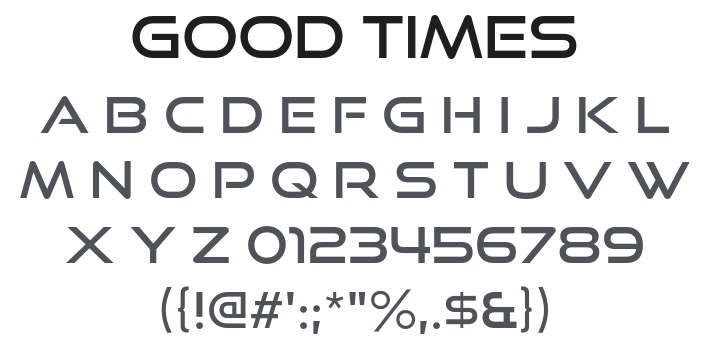
Good Times Font
About Good Times
Good Times takes cues from late-20th-century automotive lettering, pairing streamlined geometry with smooth, capsule-shaped forms that suggest motion and precision. Its mix of straight horizontals and rounded ends creates a balance of strength and polish, suited for everything from tech branding to game interfaces. The family includes seven weights with obliques, plus the rugged Good Times Bad Times variant for a worn, industrial look. Designed for clarity and speed, it delivers bold, cohesive typography that carries the confidence of engineered performance.